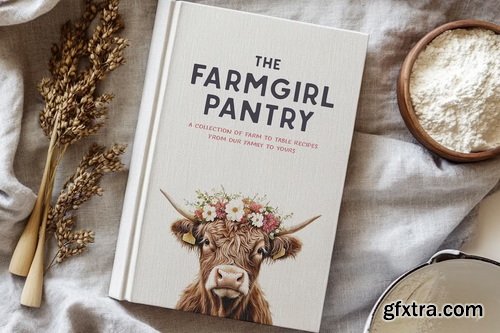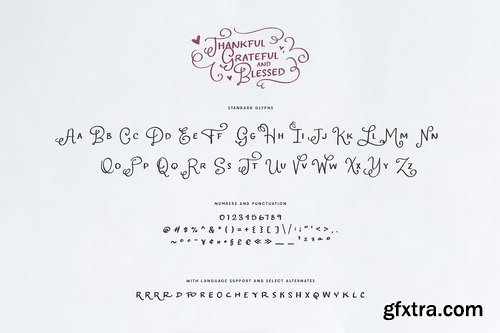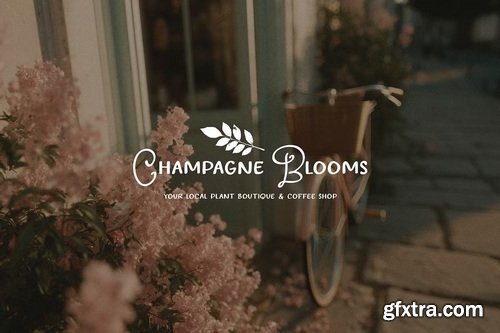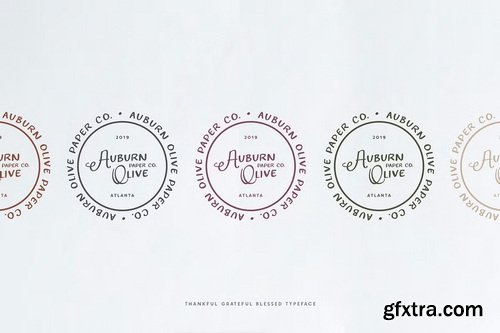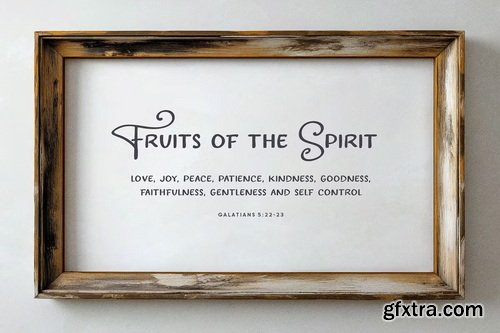
CreativeMarket - Thankful Grateful & Blessed Type
Introducing Thankful, Grateful & Blessed! This cute dual purpose font can be fancy with decorative uppercase glyphs, or simple and legible with a set of all-caps lowercase glyphs. Use on wedding invitations, Save The Date cards, packaging, logos, quotes and more!